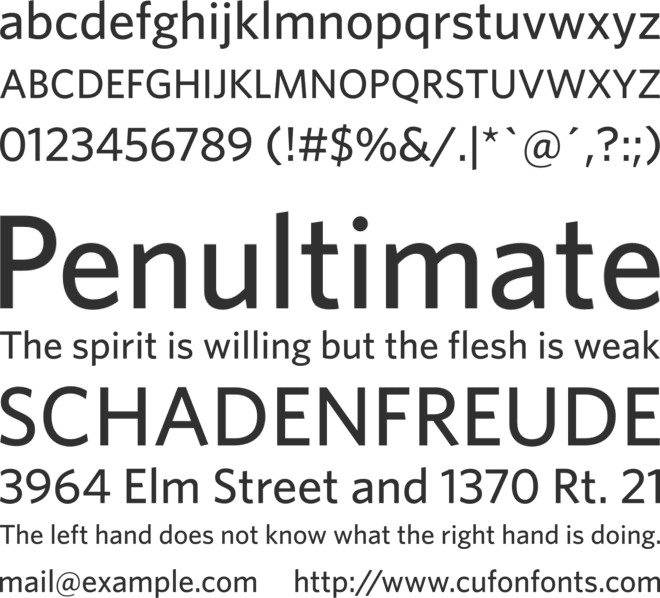
Download Whitney Font - Web download whitney font · free for personal use · this font is for personal use only! Web whitney font family. Whitney font family a popular typeface that comes with a highly legible design and keen features. Moreover, you can embed it to your website. 1 download search fonts filed under: It was designed by a famous american type designer tobias. Commercial, sans serif about download free high quality fonts for your professional. To see the full family and acquire the commercial license please visit:
Web download whitney font · free for personal use · this font is for personal use only! It was designed by a famous american type designer tobias. Whitney font family a popular typeface that comes with a highly legible design and keen features. Commercial, sans serif about download free high quality fonts for your professional. 1 download search fonts filed under: Web whitney font family. To see the full family and acquire the commercial license please visit: Moreover, you can embed it to your website.
Commercial, sans serif about download free high quality fonts for your professional. Moreover, you can embed it to your website. Whitney font family a popular typeface that comes with a highly legible design and keen features. Web download whitney font · free for personal use · this font is for personal use only! It was designed by a famous american type designer tobias. To see the full family and acquire the commercial license please visit: 1 download search fonts filed under: Web whitney font family.
Moreover, you can embed it to your website. Whitney font family a popular typeface that comes with a highly legible design and keen features. Web download whitney font · free for personal use · this font is for personal use only! 1 download search fonts filed under: Commercial, sans serif about download free high quality fonts for your professional.
Web download whitney font · free for personal use · this font is for personal use only! To see the full family and acquire the commercial license please visit: Web whitney font family. Commercial, sans serif about download free high quality fonts for your professional. Moreover, you can embed it to your website.
Web whitney font family. Commercial, sans serif about download free high quality fonts for your professional. Whitney font family a popular typeface that comes with a highly legible design and keen features. Moreover, you can embed it to your website. 1 download search fonts filed under:
Moreover, you can embed it to your website. It was designed by a famous american type designer tobias. Whitney font family a popular typeface that comes with a highly legible design and keen features. 1 download search fonts filed under: Web download whitney font · free for personal use · this font is for personal use only!
1 download search fonts filed under: Web download whitney font · free for personal use · this font is for personal use only! Commercial, sans serif about download free high quality fonts for your professional. Moreover, you can embed it to your website. Web whitney font family.
Web whitney font family. Commercial, sans serif about download free high quality fonts for your professional. It was designed by a famous american type designer tobias. Whitney font family a popular typeface that comes with a highly legible design and keen features. Moreover, you can embed it to your website.
Whitney Font
It was designed by a famous american type designer tobias. Web whitney font family. 1 download search fonts filed under: Commercial, sans serif about download free high quality fonts for your professional. Web download whitney font · free for personal use · this font is for personal use only!
Whitney Font Synthetic Type FontSpace
Web whitney font family. Moreover, you can embed it to your website. To see the full family and acquire the commercial license please visit: Whitney font family a popular typeface that comes with a highly legible design and keen features. It was designed by a famous american type designer tobias.
Whitney Font Download Free Fonts Toevolution
To see the full family and acquire the commercial license please visit: It was designed by a famous american type designer tobias. Web whitney font family. Commercial, sans serif about download free high quality fonts for your professional. 1 download search fonts filed under:
Whitney Font Webfont & Desktop MyFonts
It was designed by a famous american type designer tobias. Whitney font family a popular typeface that comes with a highly legible design and keen features. Commercial, sans serif about download free high quality fonts for your professional. Moreover, you can embed it to your website. Web download whitney font · free for personal use · this font is for.
Web Whitney Font Family.
Moreover, you can embed it to your website. Web download whitney font · free for personal use · this font is for personal use only! It was designed by a famous american type designer tobias. Whitney font family a popular typeface that comes with a highly legible design and keen features.